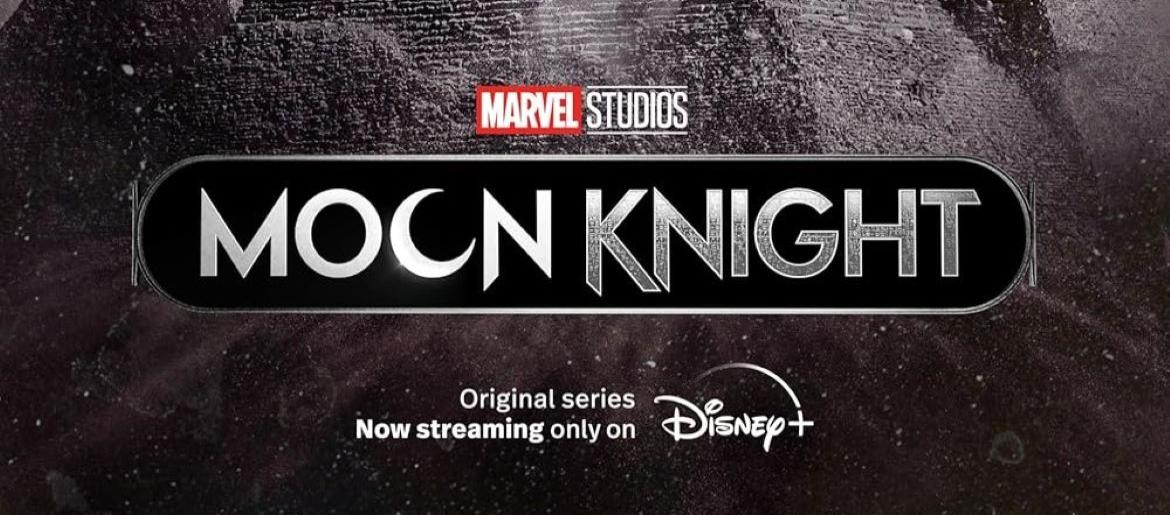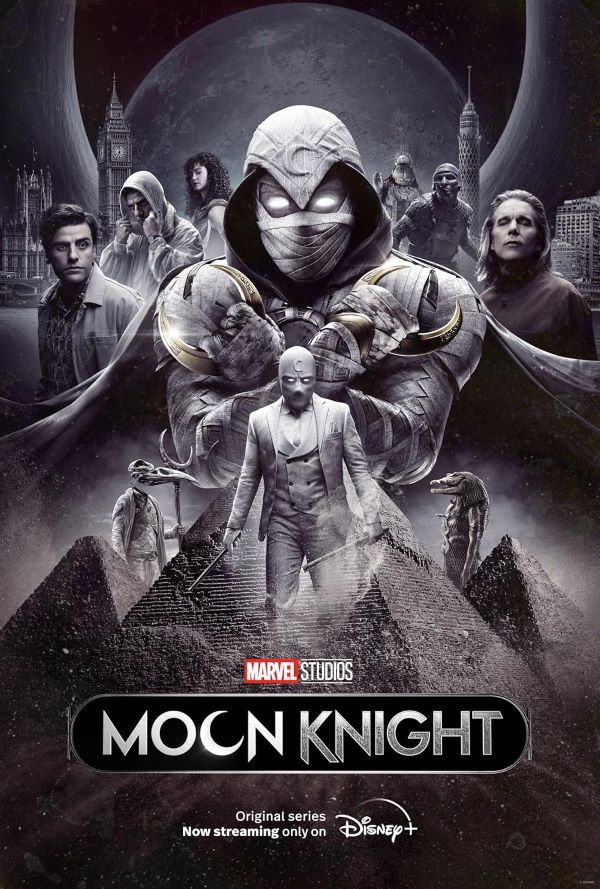
Moon Knight Font
What Font is Moon Knight?
The Moon Knight Font used in the television series title is a replica font created for fan and display use, as the official logotype appears to have been custom-designed. You can download this free alternative font for personal use and apply it to your design projects inspired by the show.
About Moon Knight
Moon Knight (2022) is a Marvel Studios television series centered on Steven Grant, a mild-mannered museum gift-shop employee who becomes the conduit for the Egyptian god Khonshu. As Grant’s dissociative identity disorder surfaces, the character of Marc Spector emerges, and the two identities must cooperate to face ancient threats. The show blends psychological drama, mysticism and action-thriller elements — and its typography reflects that tone: bold, angular, slightly futuristic, and composed for an ominous, hero-driven aesthetic.